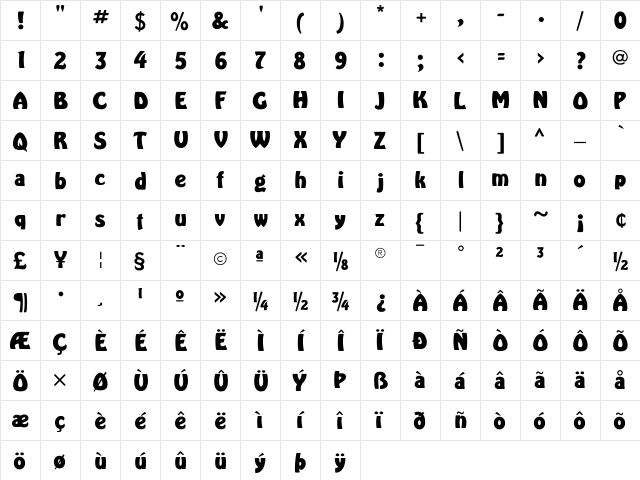
HarlequinExtraboldFLF Regular
Design Context for HarlequinExtraboldFLF Typeface
HarlequinExtraboldFLF is a composed and adaptable typeface that performs quietly and consistently across a wide range of design contexts. Its bold stroke weight gives it real presence on the page.